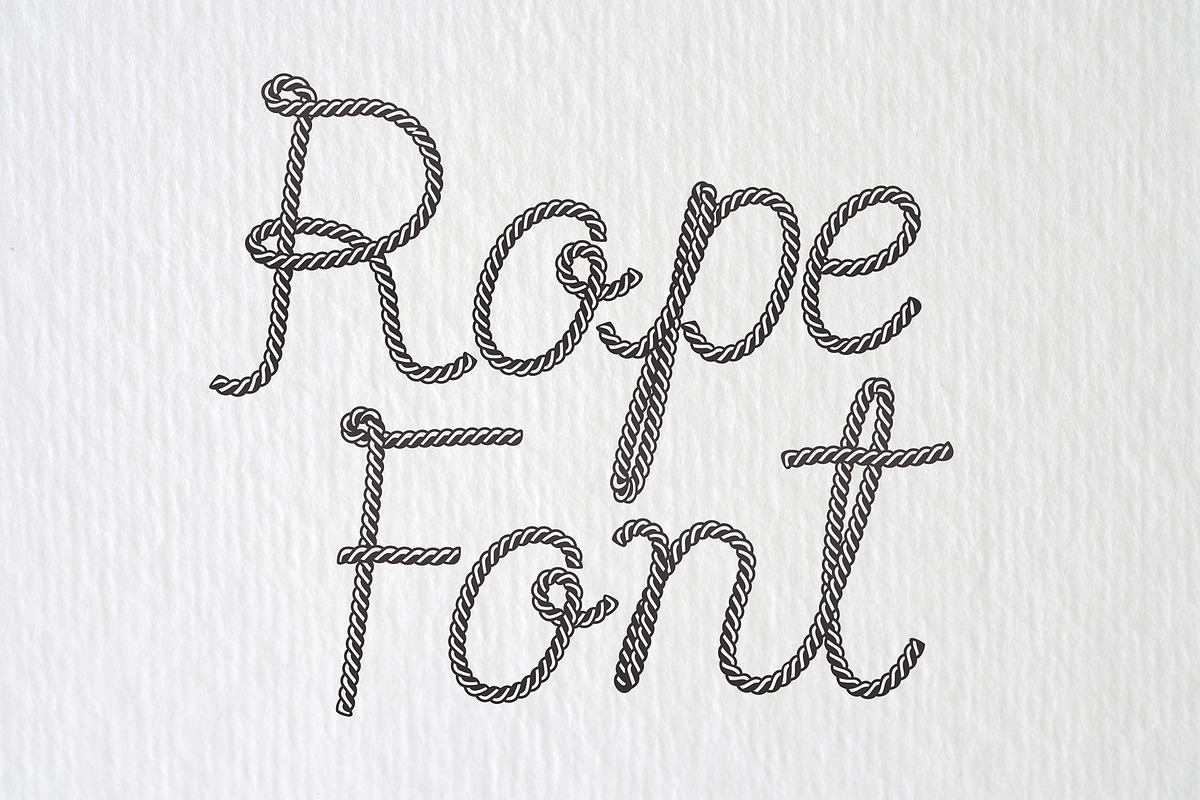
The Rope Fonts Free Download offers a bold, eye-catching design that’s perfect for projects that need a strong, adventurous look. With its unique, rope-inspired letterforms, this font adds a rustic and dynamic feel to any design. Ideal for creating logos, branding materials, posters, and more, the Rope Fonts Free Download brings a touch of personality and rugged charm to your work. Whether you're working on outdoor, sports, or nautical-themed projects, this font will help your designs stand out with style. Please note, for commercial use, a license purchase is required. However, you can easily download the Rope Fonts Free Download for free for personal use and explore its versatility in your designs. Download the Rope Fonts Free Download today and infuse your creative projects with a bold and distinctive look.